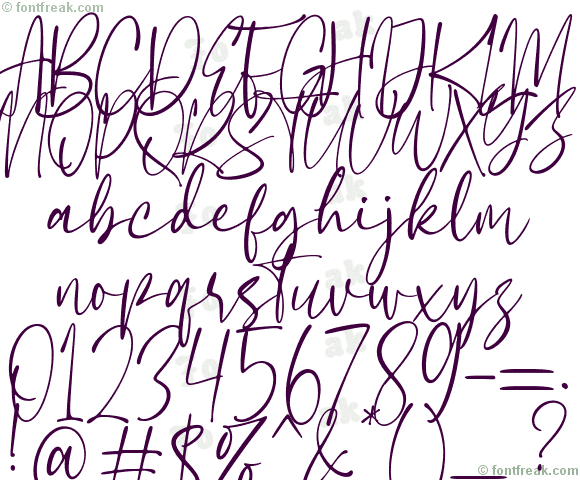
The Whistler
About The Whistler
The Whistler font by Abas Creative is a captivating handwritten typeface that exudes a warm and inviting charm. With its fluid strokes and whimsical character, this font is perfect for those seeking a personal touch in their design projects. The Whistler features a medium stroke weight with gentle contrast, allowing for easy readability while maintaining an artistic flair. Its well-balanced spacing enhances its legibility, making it suitable for both print and digital media.
This font shines in several specific use cases. It is an excellent choice for wedding invitations, where its elegant yet casual vibe can beautifully convey romance and intimacy. Additionally, The Whistler works wonderfully for restaurant menus, providing a friendly and approachable aesthetic that can enhance the dining experience. It is also ideal for branding projects aimed at small businesses, giving that personal touch that resonates with customers. Content creators will find it perfect for social media graphics and blog titles, where a unique and inviting look can boost engagement.
Targeting graphic designers, small business owners, and content creators alike, The Whistler font free download offers a versatile solution for anyone looking to elevate their visual communication. Its unique handwritten style captures attention and adds a personal element that is often sought after in today’s design landscape.
What sets The Whistler apart is its ability to blend artistry with practicality. It allows for creative expression without sacrificing readability, making it a valuable addition to any designer's toolkit. Whether used for casual or formal projects, The Whistler brings a delightful charm that can transform ordinary text into something truly special.